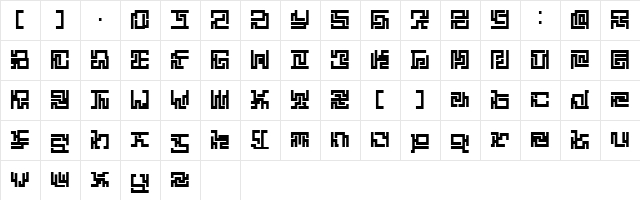
ZETUEIALP Regular
Design Context for ZETUEIALP Typeface
ZETUEIALP is a composed and adaptable typeface that performs quietly and consistently across a wide range of design contexts.